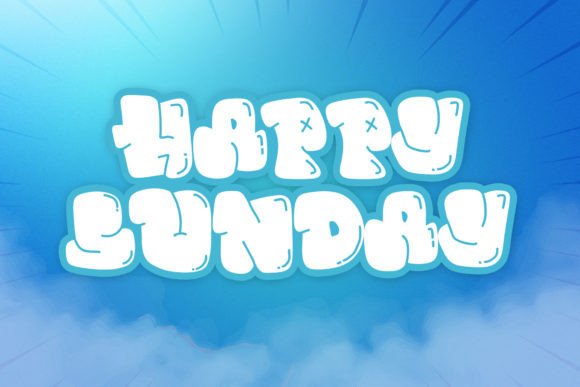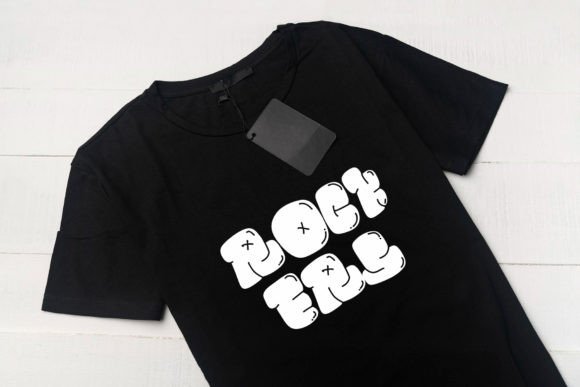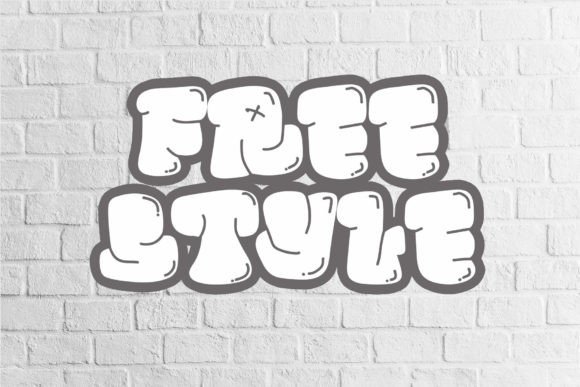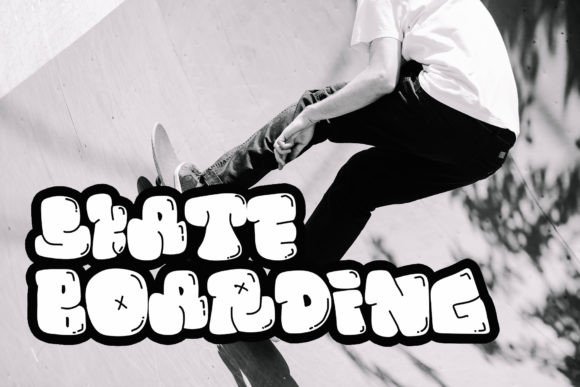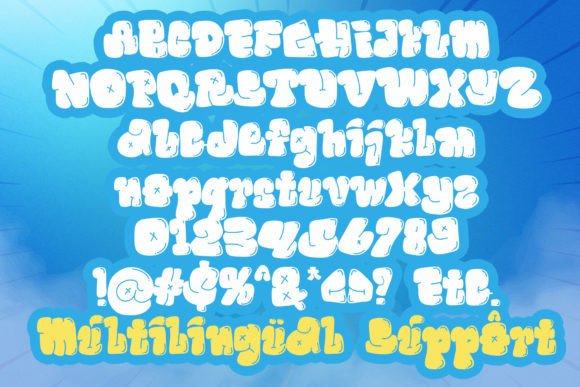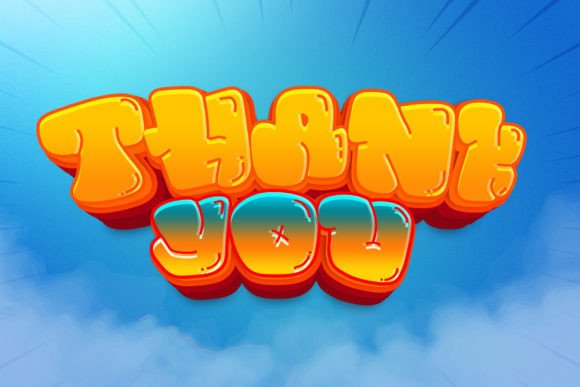
Introducing Funny Toys Font: The Ultimate Addition to Your Font Library
Are you tired of using the same old fonts in your designs? Look no further! Funny Toys Font is here to add a playful touch to your creations. This fun and bubble display font is perfect for designers and crafters who want to make their work stand out. In this article, we’ll dive into the features and benefits of Funny Toys Font and explore how it can elevate your designs.
What is Funny Toys Font?
Funny Toys Font is a unique and eye-catching display font that is sure to grab attention. Its fun and bubbly design makes it perfect for a wide range of projects, from children’s party invitations to social media graphics and more. The font’s playful style is reminiscent of childhood toys and games, making it an excellent choice for designs that require a lighthearted and whimsical touch.
Key Features of Funny Toys Font
- Fun and playful design: Funny Toys Font features a unique and playful design that is sure to add a touch of whimsy to your designs.
- Bubble display style: The font’s bubble display style makes it perfect for headlines, titles, and other attention-grabbing elements.
- High-quality and versatile: Funny Toys Font is a high-quality font that can be used for a wide range of projects, from digital designs to print materials.
- Easily readable: Despite its playful design, Funny Toys Font is easily readable, making it perfect for designs that require a clear and concise message.
Benefits of Using Funny Toys Font
So, why should you add Funny Toys Font to your font library? Here are just a few benefits of using this fun and playful font:
- Adds a touch of whimsy: Funny Toys Font adds a touch of whimsy and playfulness to your designs, making them more engaging and attention-grabbing.
- Perfect for kids’ designs: The font’s playful style makes it perfect for designs aimed at children, such as party invitations, children’s books, and more.
- Elevates your brand: Using Funny Toys Font in your designs can help elevate your brand and make it more memorable.
- Great for social media graphics: The font’s bold and playful design makes it perfect for social media graphics, such as Facebook posts, Instagram stories, and more.
How to Use Funny Toys Font
Using Funny Toys Font is easy! Here are a few tips for incorporating it into your designs:
- Use it as a headline font: Funny Toys Font is perfect for headlines and titles, where its bold and playful design can really shine.
- Pair it with other fonts: Try pairing Funny Toys Font with other fonts to create a unique and visually appealing design.
- Experiment with colors: The font’s playful design makes it perfect for experimenting with bright and bold colors.
| Font Name | Funny Toys Font |
| Author | Letterafa Studio |
In conclusion, Funny Toys Font is a fun and playful display font that is sure to add a touch of whimsy to your designs. Its bold and bubble display style makes it perfect for a wide range of projects, from children’s party invitations to social media graphics and more. With its high-quality design and versatility, Funny Toys Font is an excellent addition to any font library.